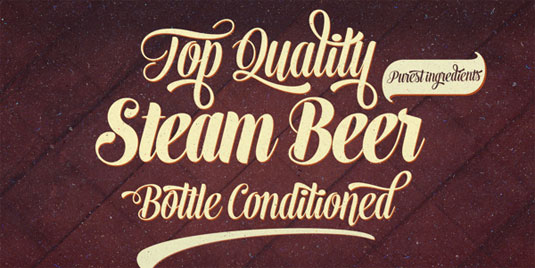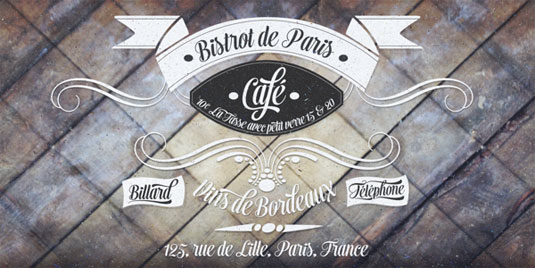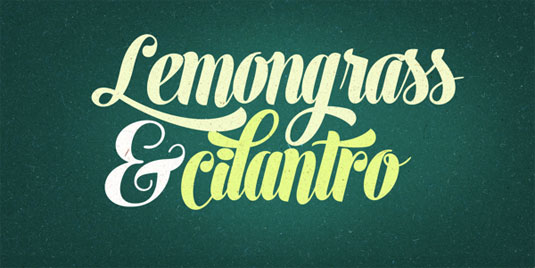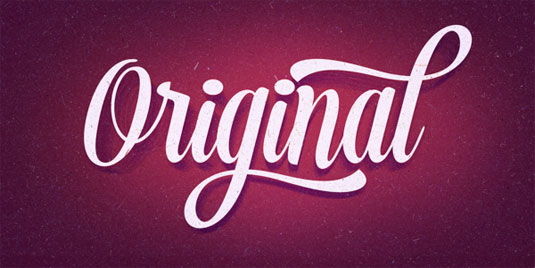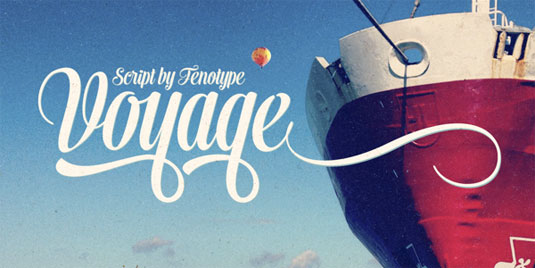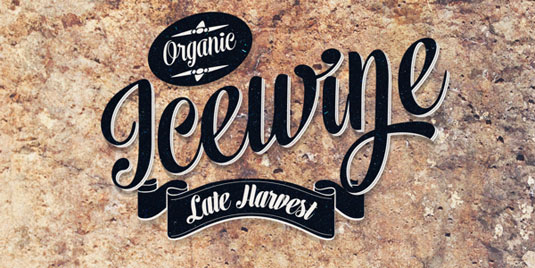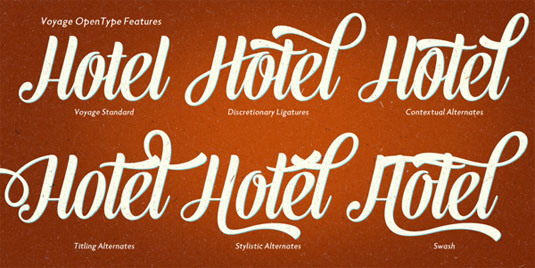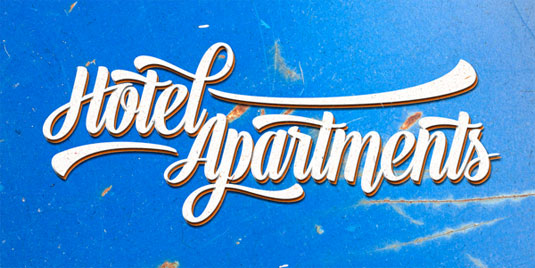
Font of the day: Voyage
Every day we showcase the best fonts on the web. Today it's Voyage by Emil Bertell.
Voyage by Emil Bertell
Today's font choice comes from Helsinki based designer Emil Bertell. A smooth and friendly vintage script, the Voyage family comes in two weights and ornament sets. It's packed with alternate characters and OpenType features to allow you create customised headlines.
To activate the alternates click on Swash, Contextual, Stylistic or Titling Alternates or Discretionary Ligatures in any OpenType savvy program or manually select the characters from Glyph Palette. For the best outcome, always keep on Standard Ligatures.